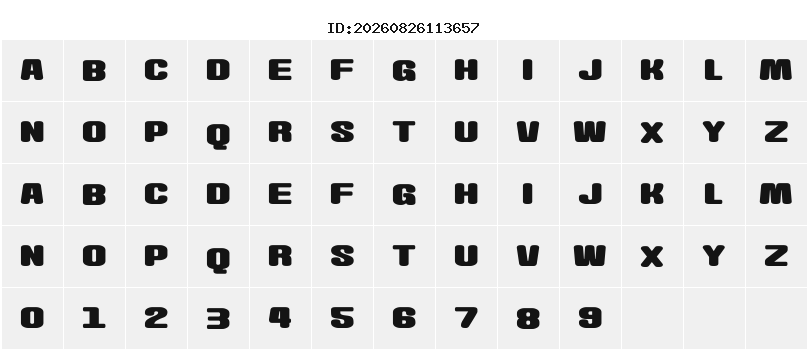
• Font Name: Wasabi-Gum__G
• Full Font Name: Wasabi-Gum__G
About Wasabi-Gum__G.ttf
Wasabi-Gum__G.ttf is a modern, elegant sans-serif font designed for ultimate readability and visual harmony. Perfect for branding, headlines, web design, and print materials.